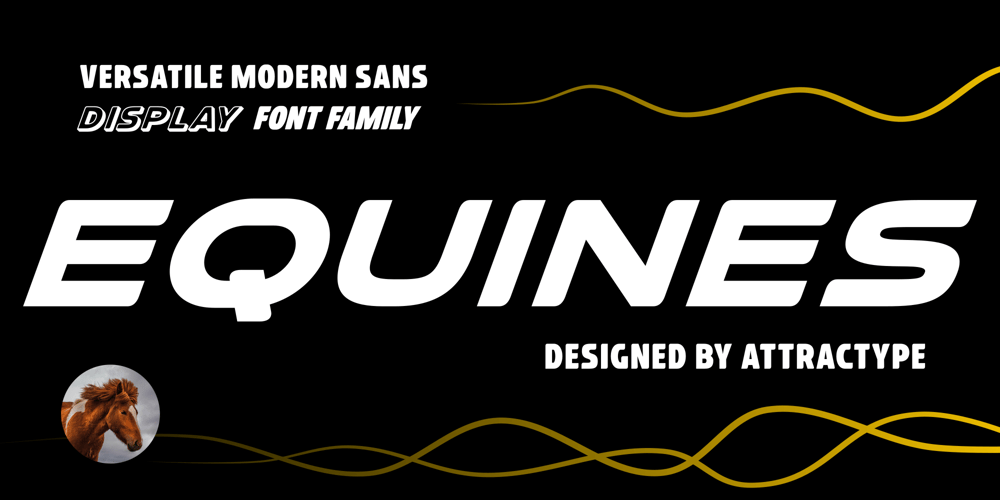
Equines Font Family was designed by Saefulloh and published by Attractype. Equines contains 14 styles and family package options. Equines Display is a versatile font family designed specifically for display purposes. Its modern, thick and strong appearance is perfect for branding, logos, banners and any lettering that requires bold and clear letters.To add an artistic image rather than just the thickness of the shape, Equines Display adds a rounding feature to the corners of the letters with a cross system, which makes the word display dynamic, strong and elegant.Until this description was published, Equines Display had 14 styles including condesed, expanded, outline and shaded in hopes of meeting the display font needs of designers and everyone at large.Enjoy working with the Equines Display font family.Best regards,Saefulloh – Attractype Foundry.